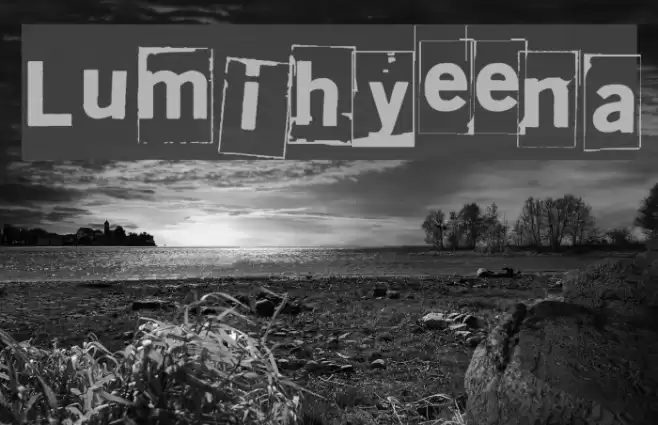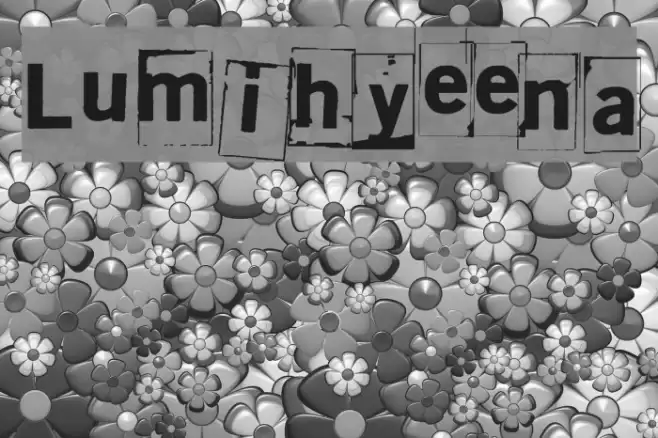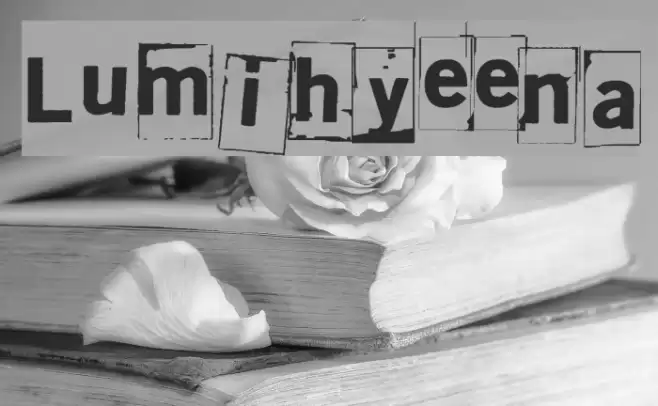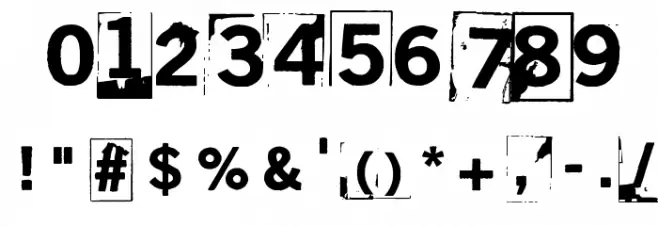
Lumihyeena Font
Lumihyeena Description
This font features a distressed, grunge style with each character appearing as if it has been stamped or printed with varying levels of ink coverage. The letters are bold and uppercase, with a rough, textured appearance that gives a sense of ruggedness and authenticity. The lowercase letters maintain the same distressed aesthetic, adding to the overall cohesive look. Numbers and special characters follow the same design, ensuring a consistent theme throughout. The irregularities in the print give it a unique, handcrafted feel, making it stand out in any design project.
A bold, distressed font with a grunge, stamped appearance from Uncategorized fonts.
- Proposed Projects: Ideal for album covers, posters, branding for edgy or alternative products, and any project requiring a rugged, authentic look.
- Overall Style: Grunge, Distressed